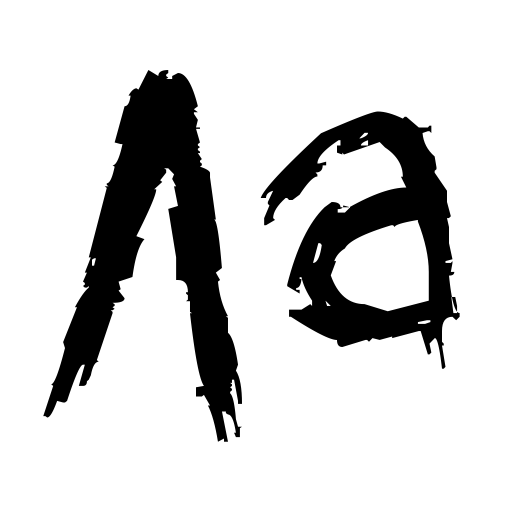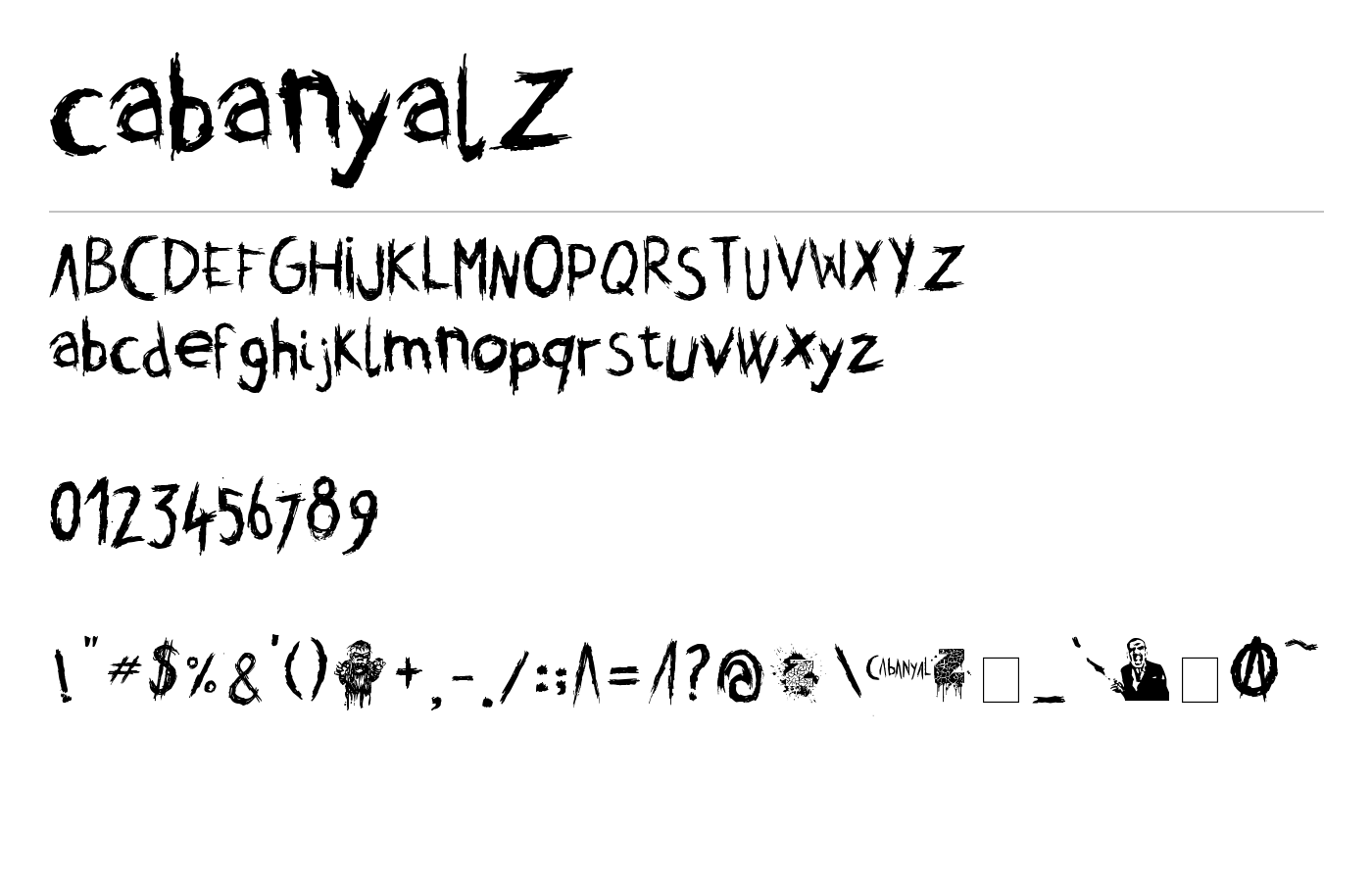
CabanyalZ is a distressed, hand-drawn sans serif font with a rough, textured appearance that gives it an edgy and rebellious character. Its irregular strokes and uneven letterforms create a raw, expressive vibe, making it ideal for creative projects that need a gritty, unconventional look. This font works well for posters, alternative branding, and artistic digital content where a bold, hand-crafted aesthetic is desired.
cabanyalZ Font
About cabanyalZ Font
| Font family | cabanyalZ Font |
| Designer | cabanyalZ-Jorgito Abuin |